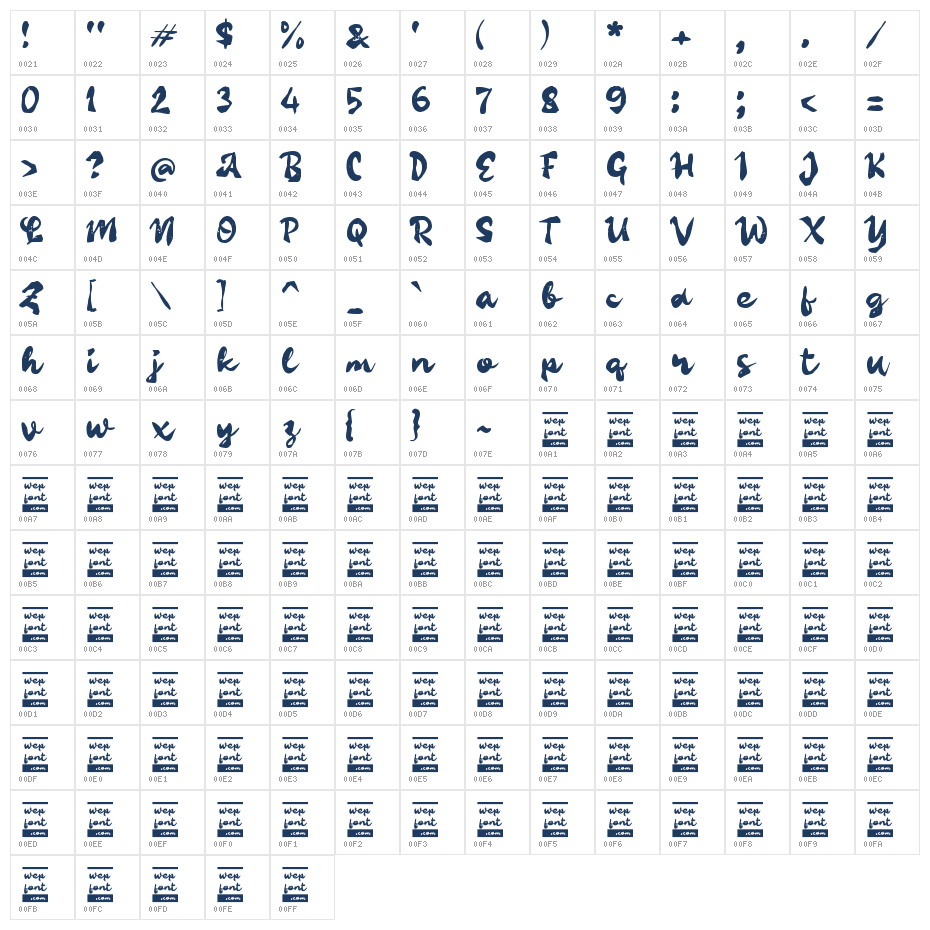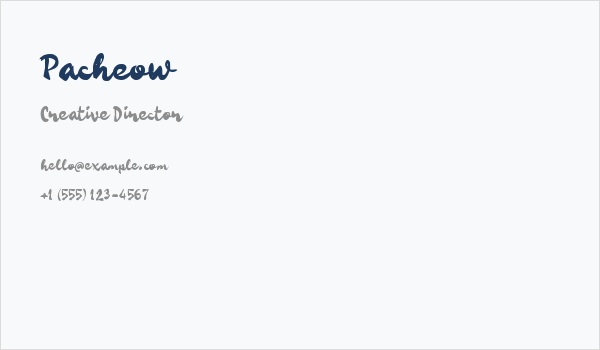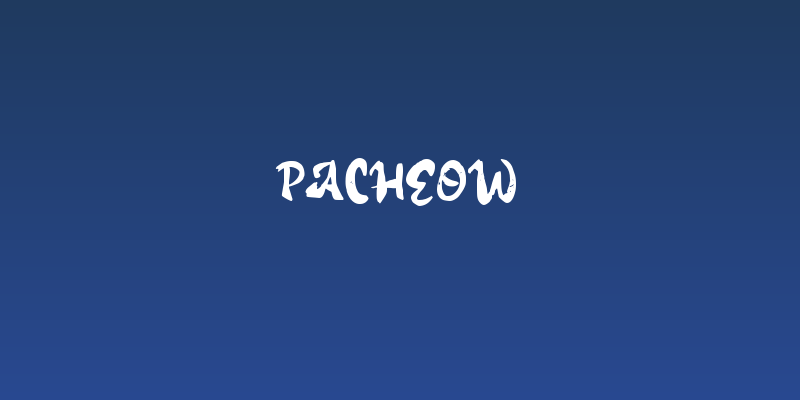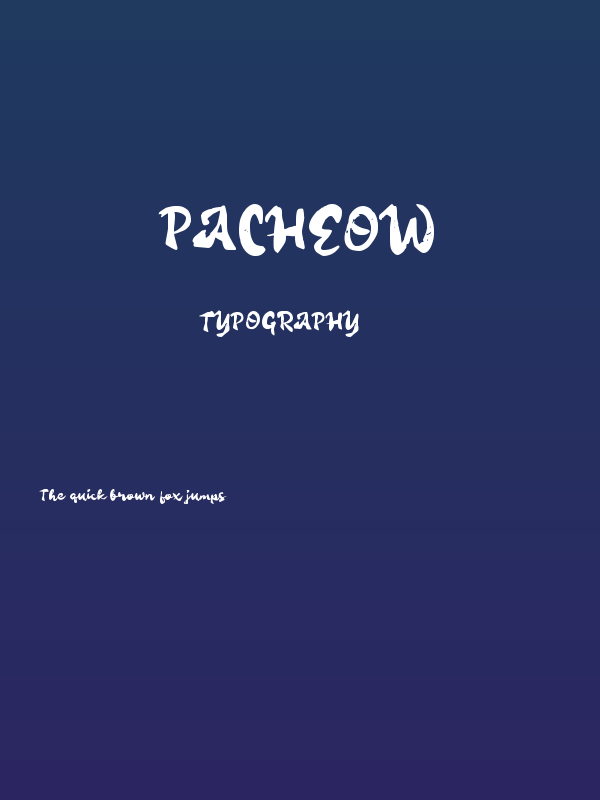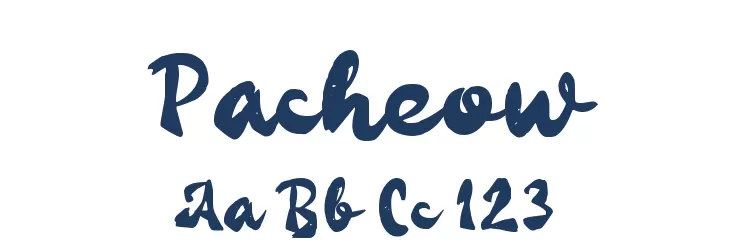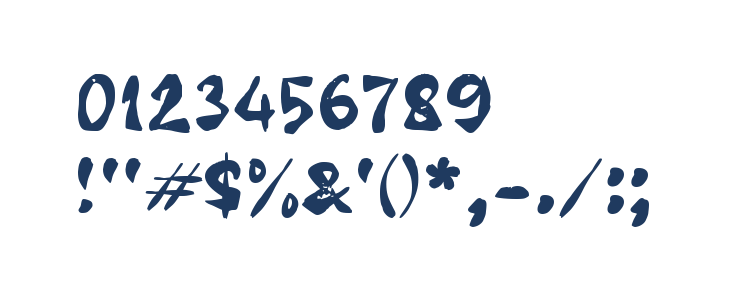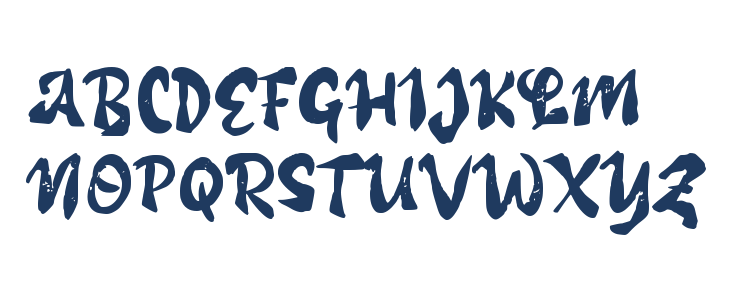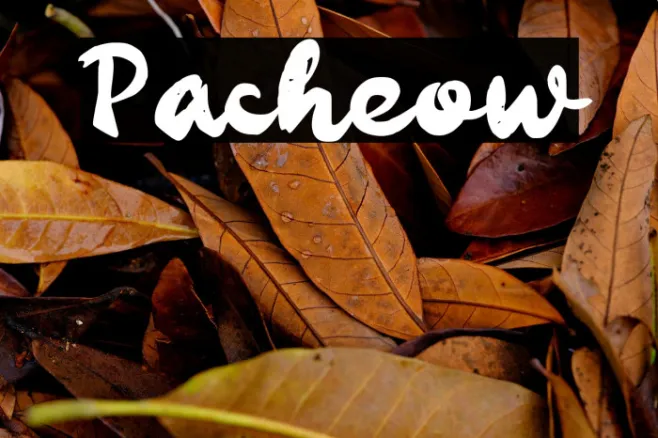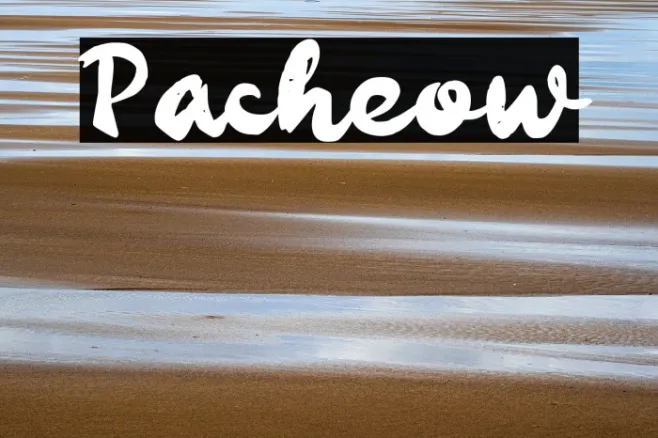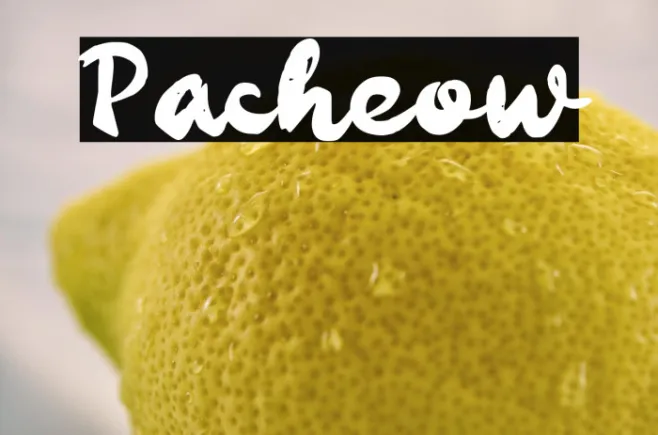
Pacheow Font
Pacheow Description
A bold, brushstroke-style script font with a casual, handwritten appearance.
| Overall Style | Casual, Artistic, Handcrafted |